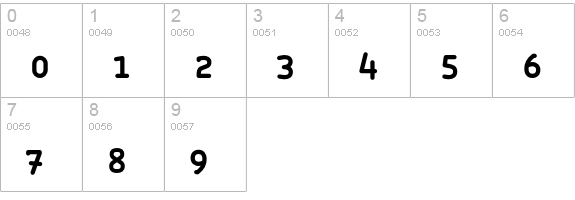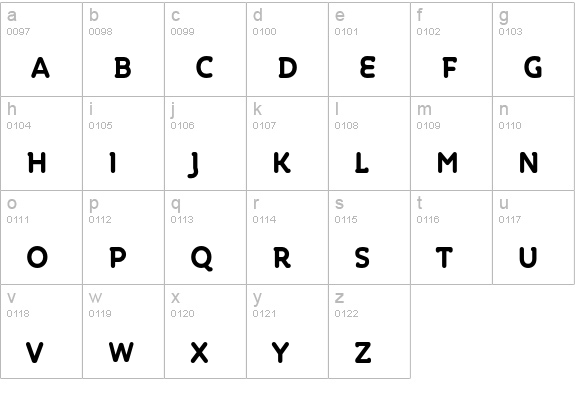
Roice-BoldSC Font Details
Roice-BoldSC is a bold and stylish font that exudes confidence and modernity. Its strong and commanding presence makes it perfect for headlines, titles, and branding materials. The clean lines and sharp edges of this font give it a sleek and professional look that is sure to make a statement. What sets Roice-BoldSC apart is that it is not only visually appealing but also versatile and easy to read. Whether you're designing a poster, a website, or a logo, this font will make your text stand out and leave a lasting impression. Best of all, Roice-BoldSC is available for free download at FontsMarket.com. This means that you can easily access this high-quality font without having to spend a dime. So why wait? Give your projects a bold and powerful touch with Roice-BoldSC today!